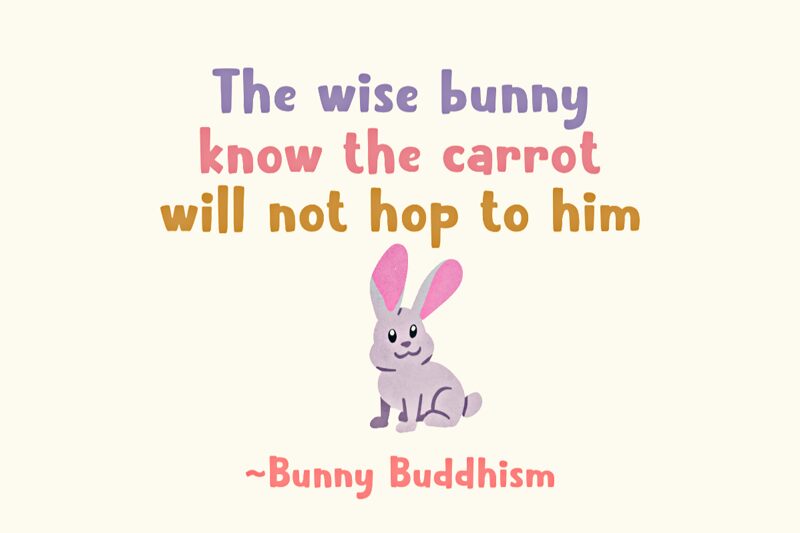
Sleepy Rabbit
Sleepy Rabbit, a bold and lively display font designed by Kurnia Setyadi, adds a touch of whimsy to any project. With its playful comic style and eye-catching boldness, this font is perfect for children's books, greeting cards, cartoons, and any design that demands attention. Its charming curves and thick strokes make headlines pop while maintaining readability. Whether you're creating a cheerful poster or designing a quirky logo, Sleepy Rabbit will bring your project to life with its vibrant personality. Let this delightful font hop into your next creative endeavor!